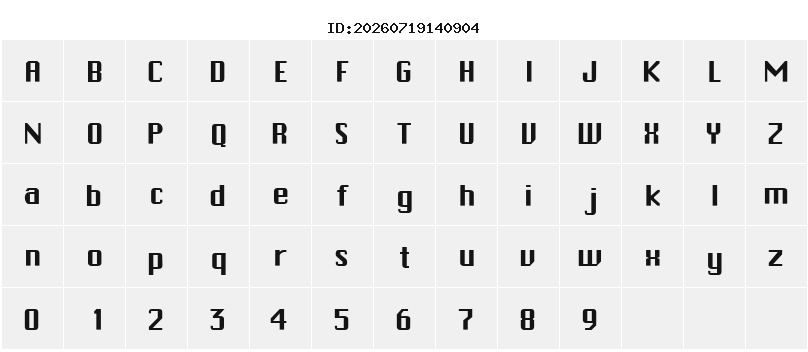
Clearly.ttf is a modern, elegant sans-serif font designed for ultimate readability and visual harmony. Perfect for branding, headlines, web design, and print materials.